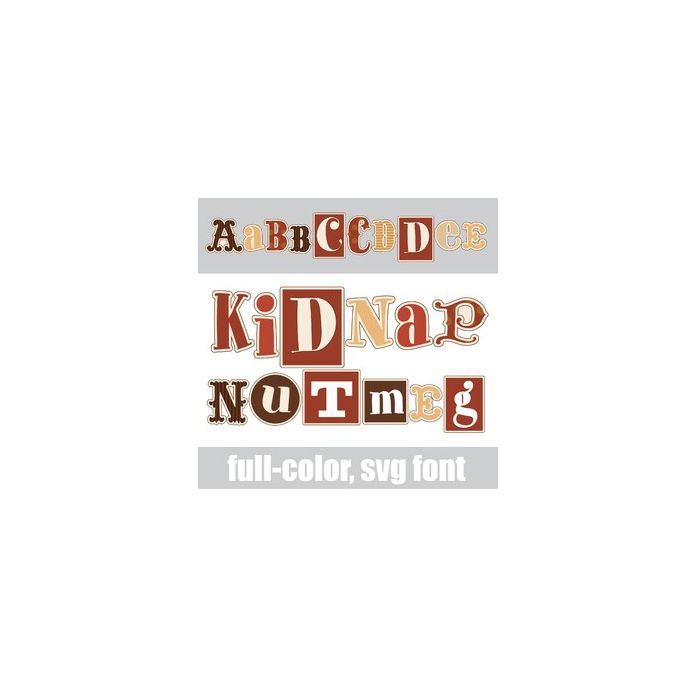
This full-color font features ransom style lettering in an autumn color palette. There is an alt case w/ additional colors you can access through your system or Silhouette's glyph map.